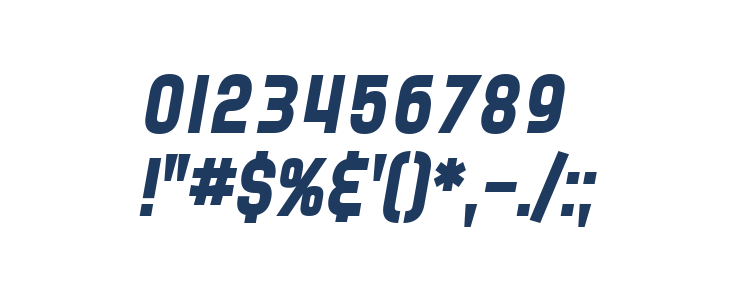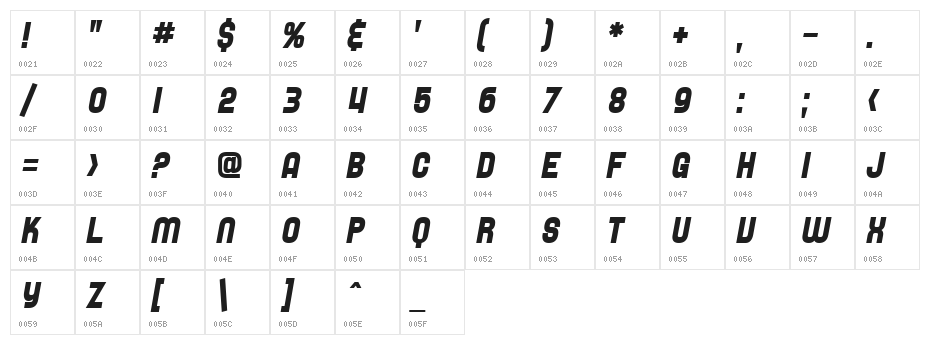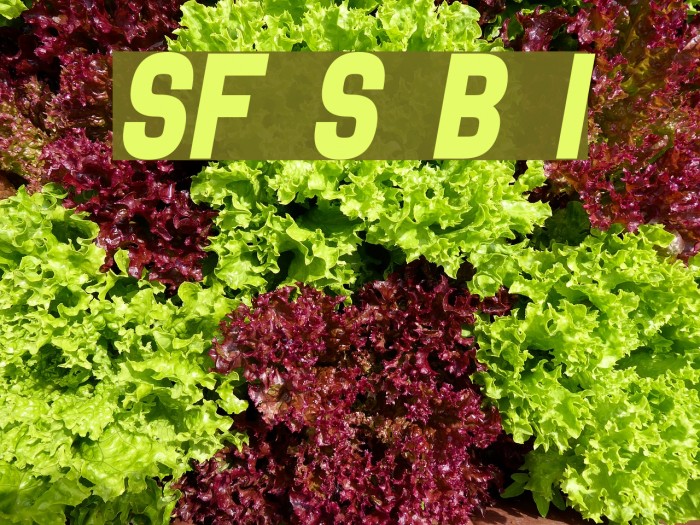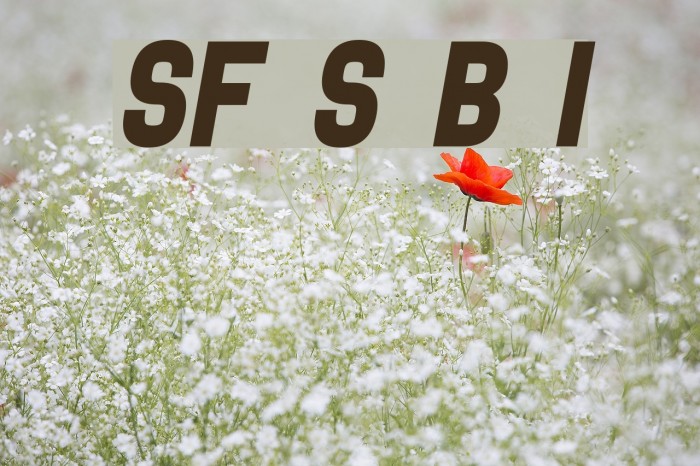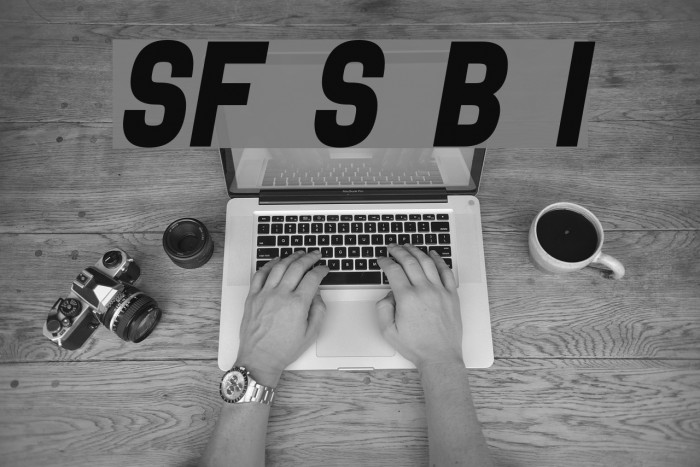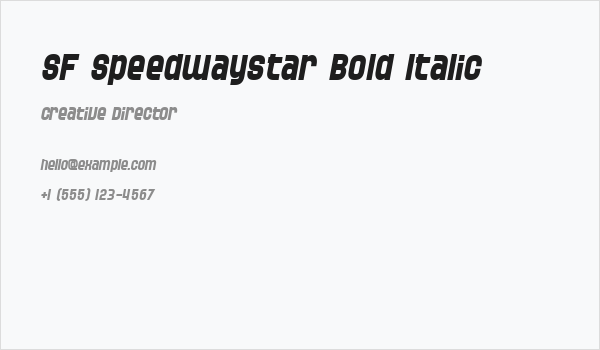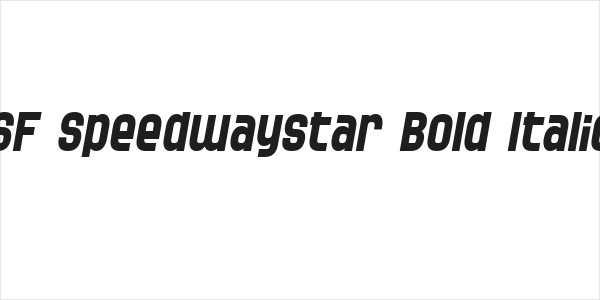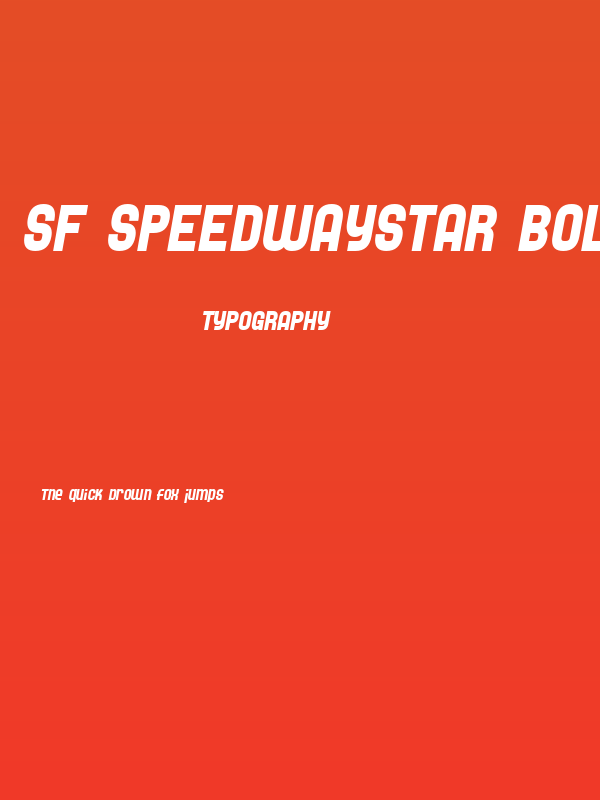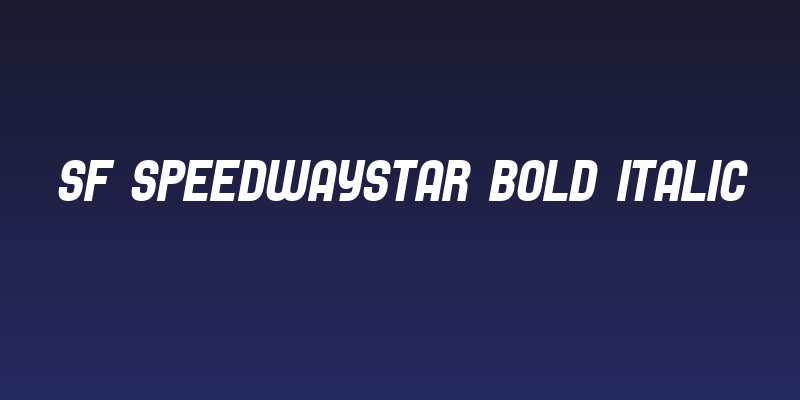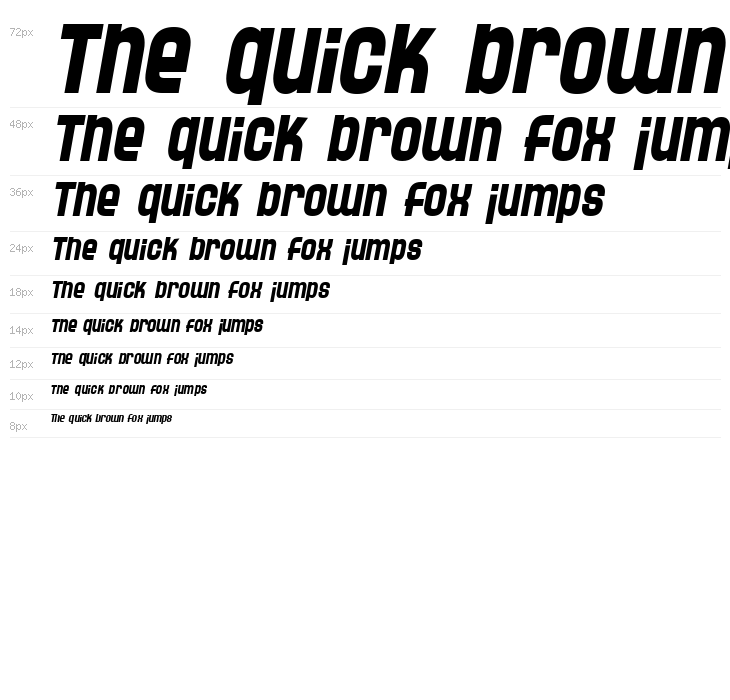
SF Speedwaystar Bold Italic Font
SF Speedwaystar Bold Italic Description
This font features a bold and italicized style, characterized by its strong, dynamic presence and forward-leaning posture. The letters are thick and robust, with a slightly condensed form that gives it a compact and powerful look. The strokes are consistent in weight, providing a uniform appearance across all characters. Its design is modern and sleek, ideal for creating a sense of speed and movement. The font includes a full set of uppercase and lowercase letters, numerals, and a variety of special characters, making it versatile for different design needs.